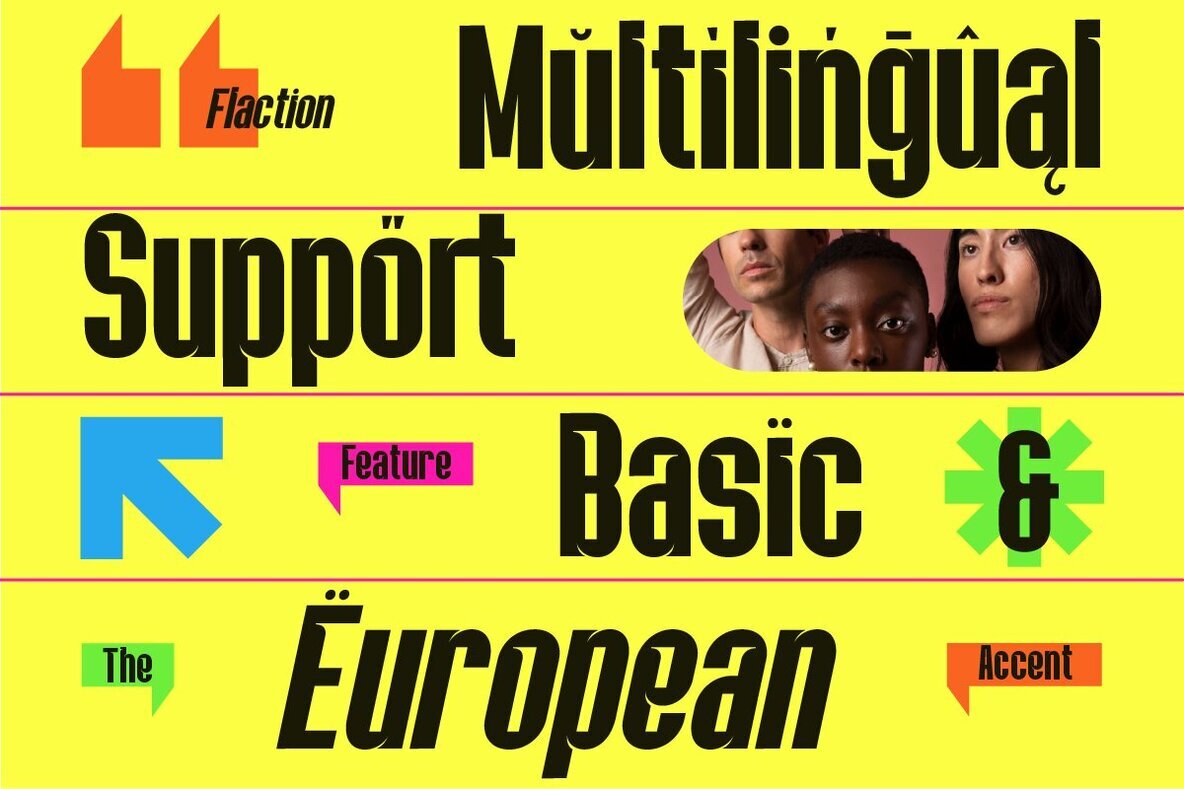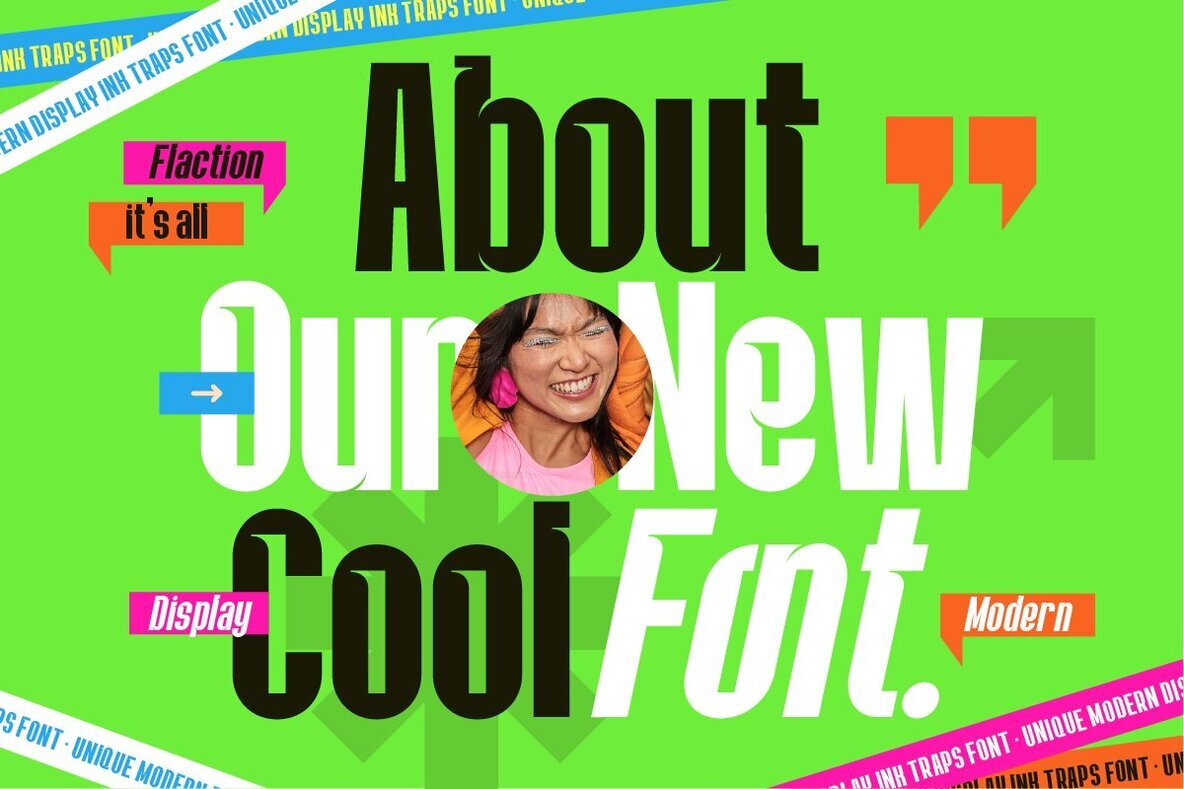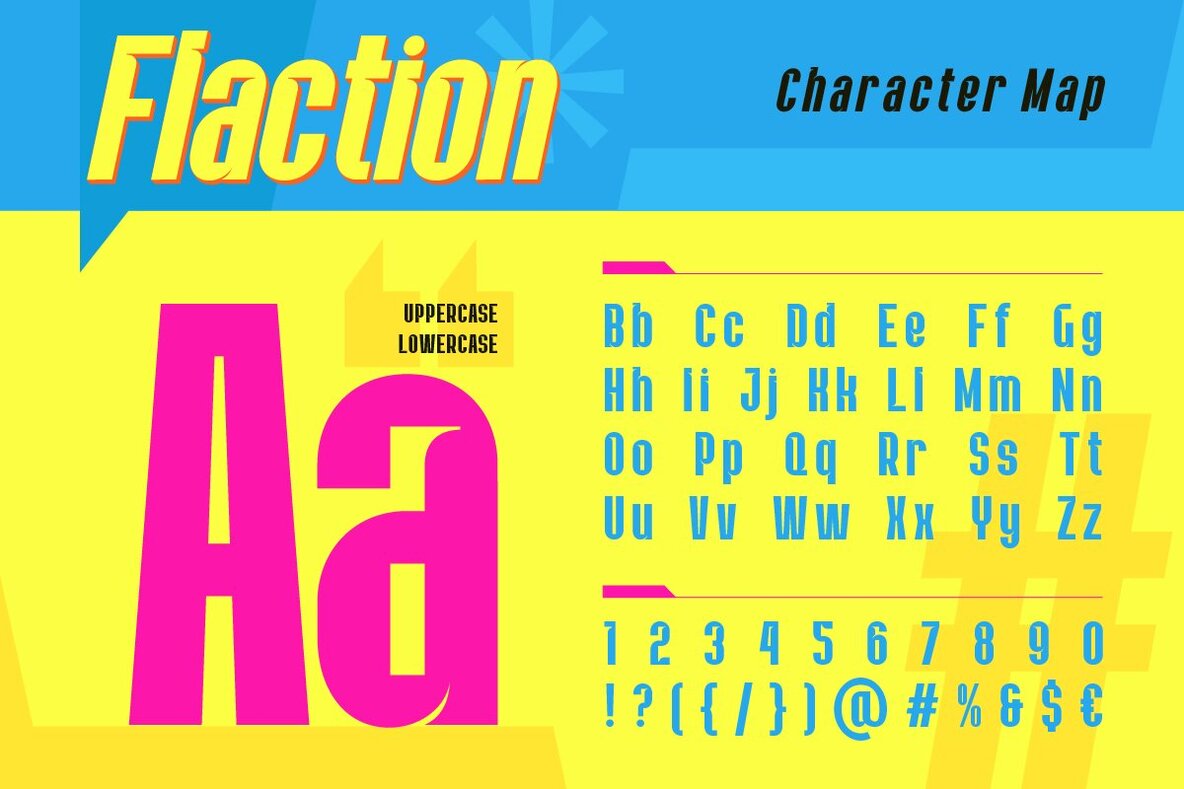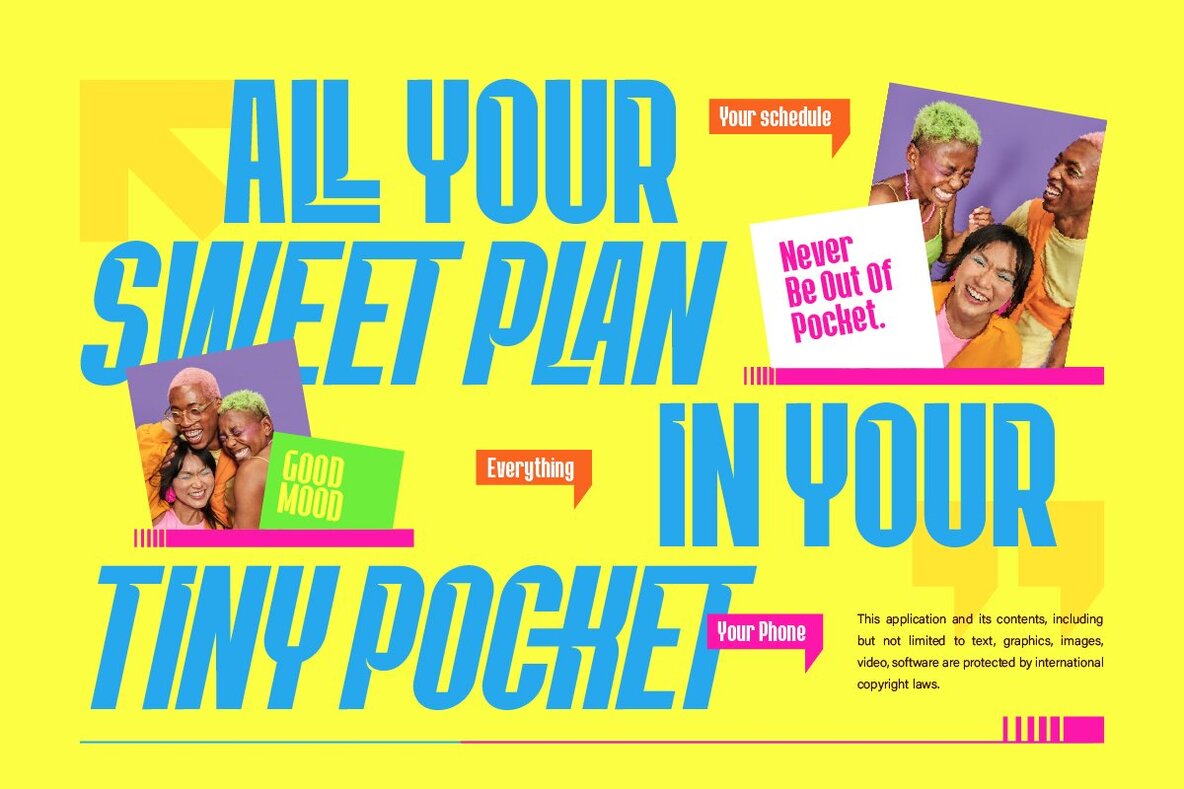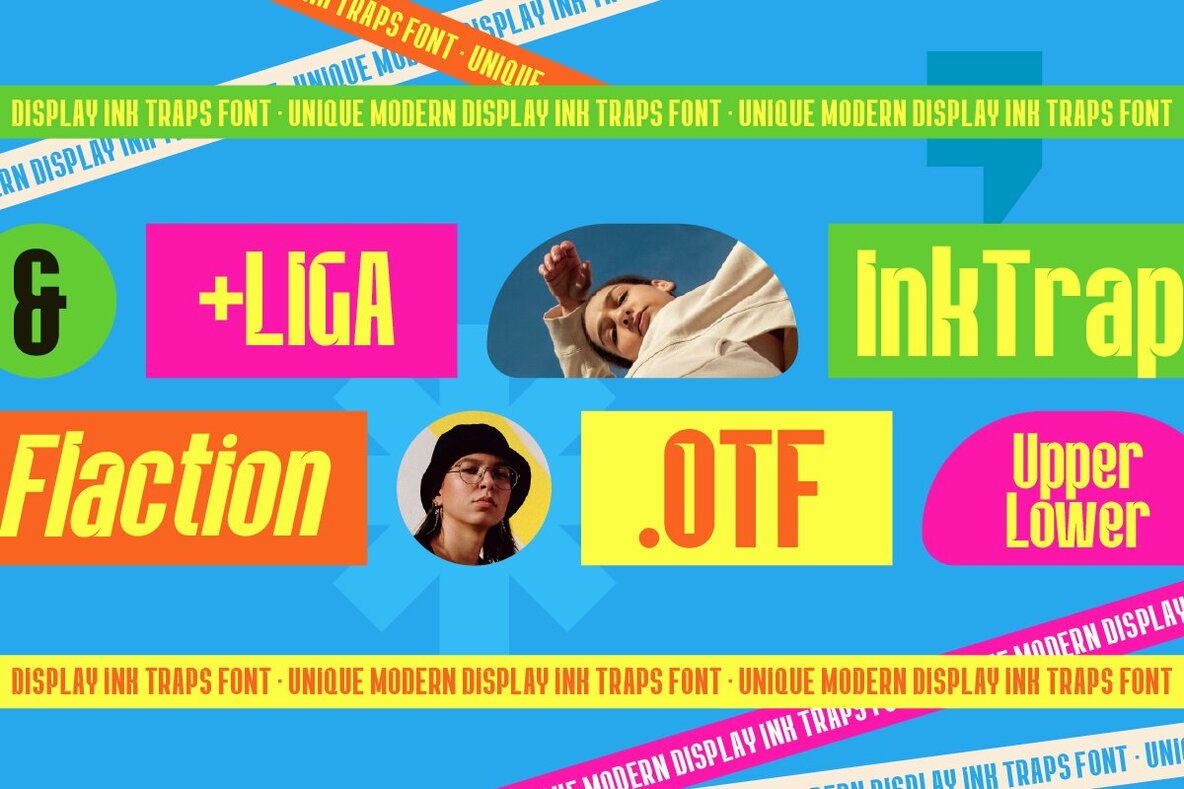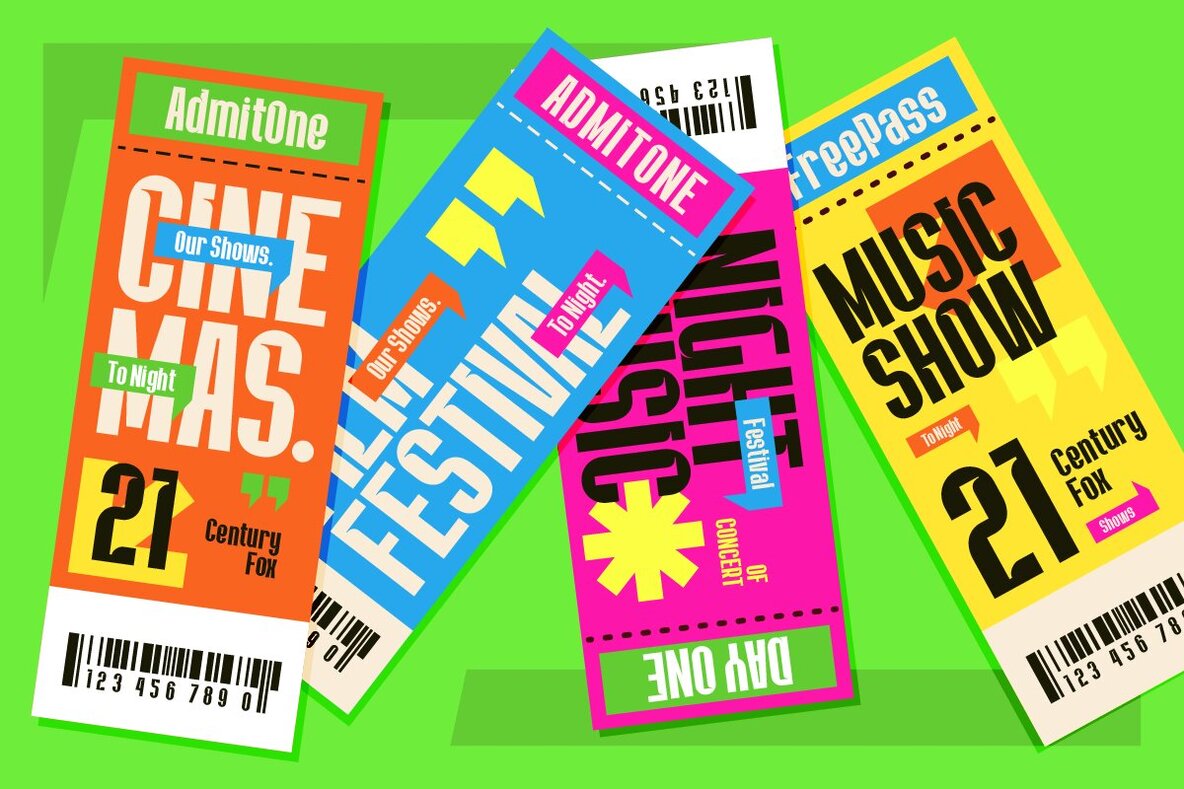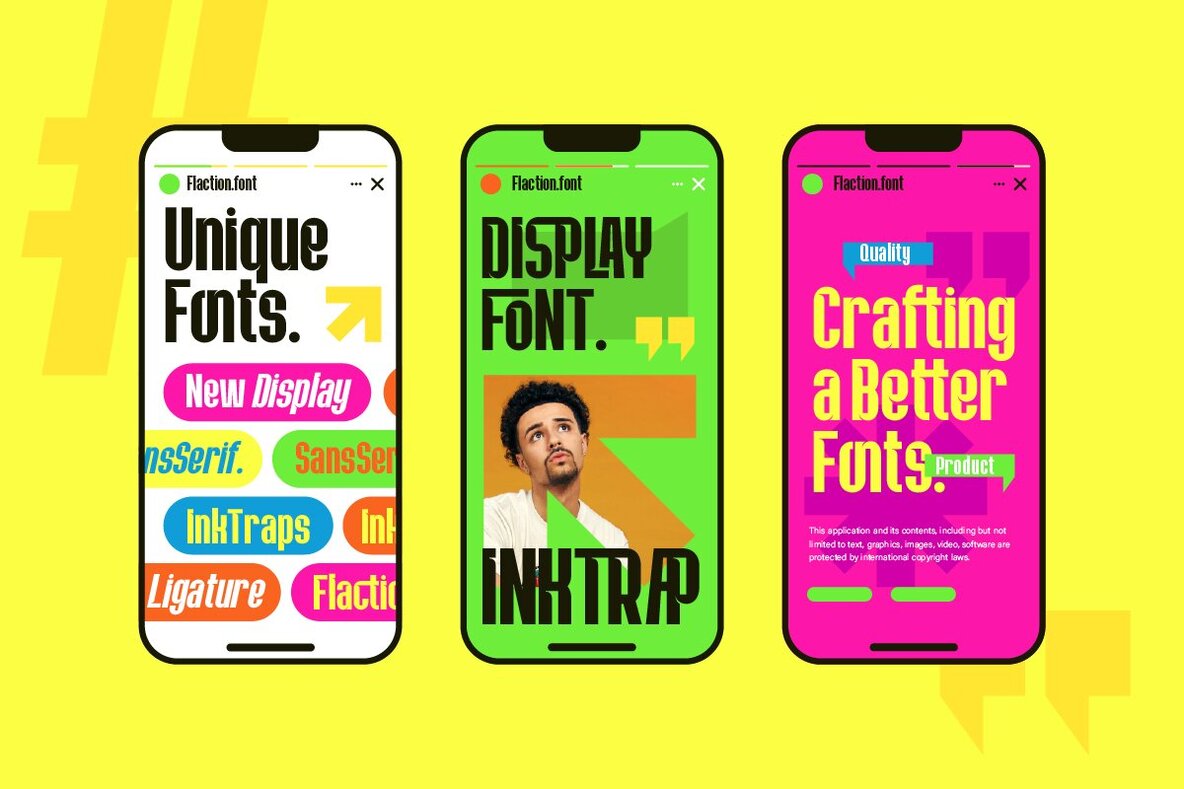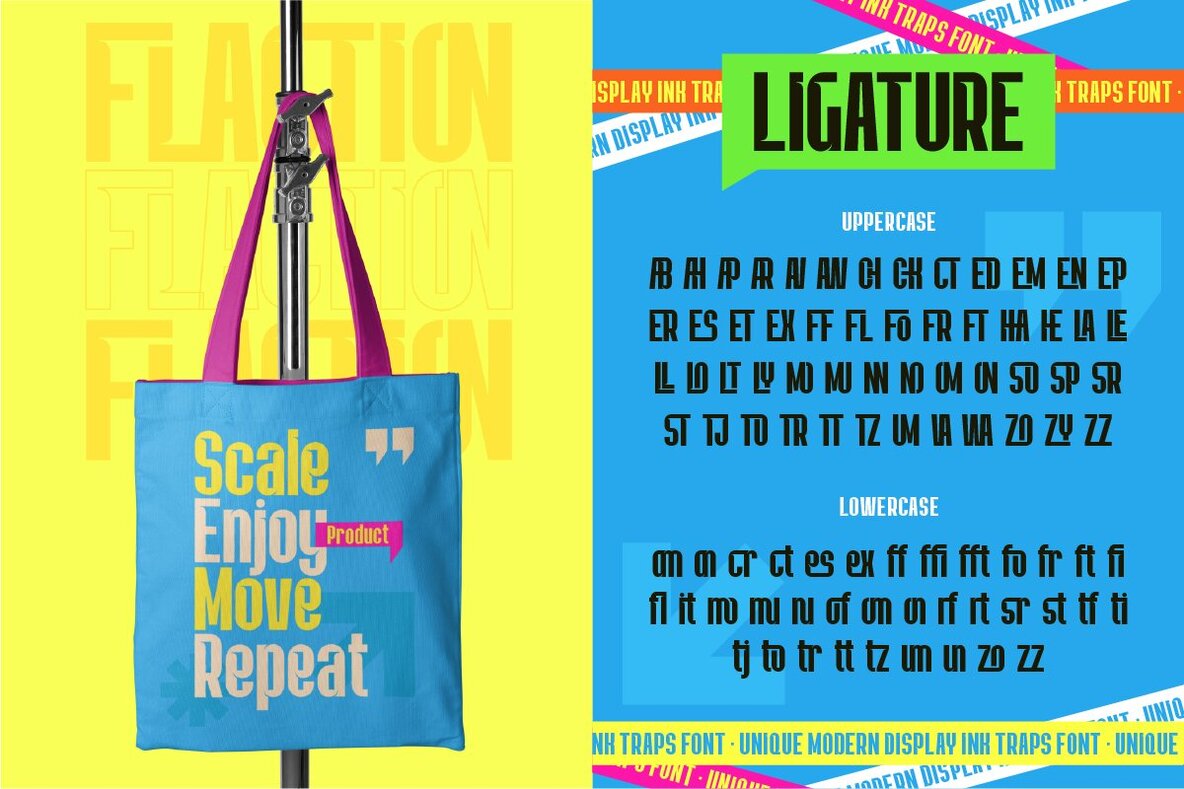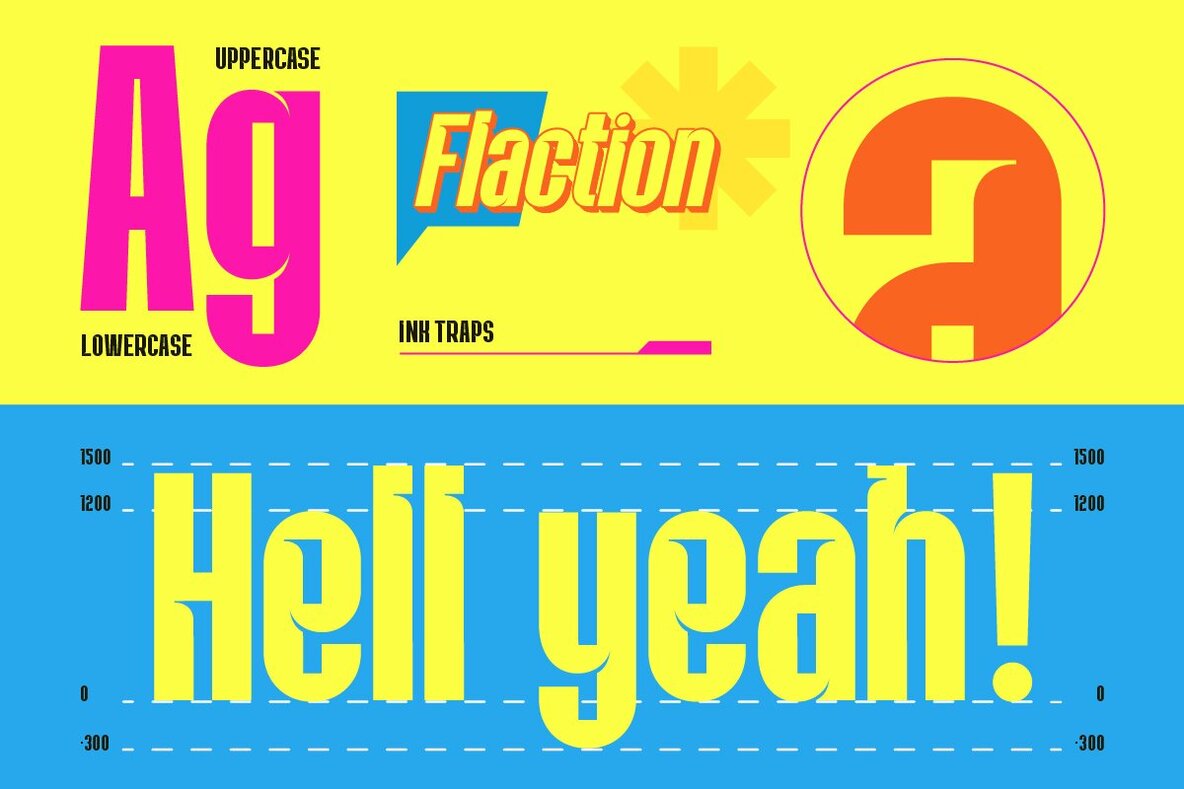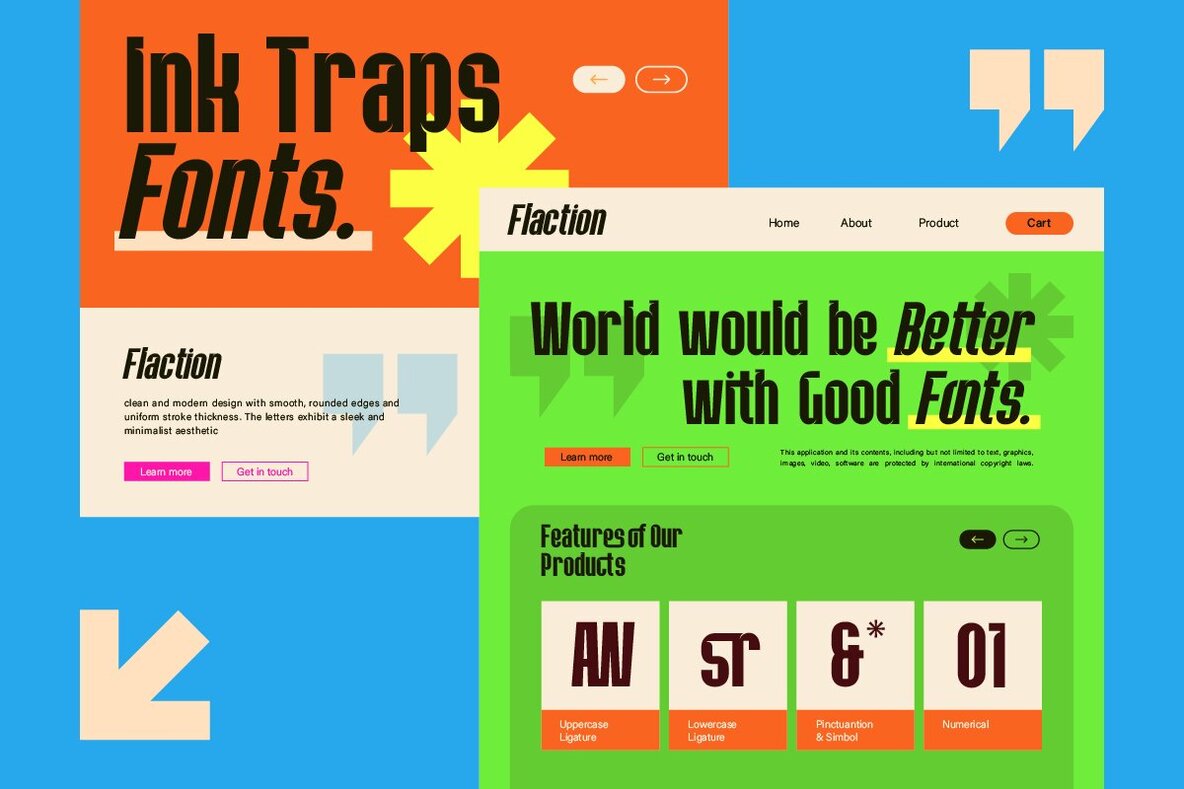
Flaction Font
Flaction introduces a unique blend of futuristic ink trap design with a dynamic sporty energy, perfect for youthful and vibrant projects. This font is more than just a typeface; it is a definitive design statement. The sharp details, robust curves, and dynamic slant of Flaction make it ideal for fast-paced environments, including sports branding and youth culture campaigns. It seamlessly integrates into modern tech designs, providing them with a sleek, forward-moving vitality. Designed to resonate with the energetic and playful spirit of today's generation, Flaction invigorates projects, whether for digital posters, lifestyle branding, or tech-inspired visuals. It ensures your design remains fresh and impactful.Flaction: A Bold Duo Font for Vibrant Designs